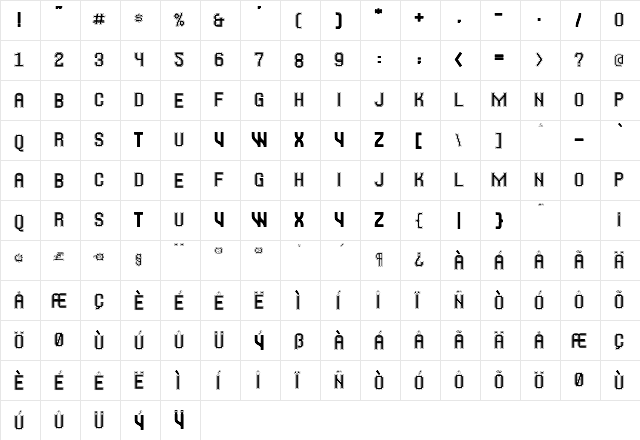
Jeed Regular
| Foundry | James Bobrowski |
| Designer | James Bobrowski |
Design Context for Jeed Typeface
Jeed is a composed and adaptable typeface that performs quietly and consistently across a wide range of design contexts.